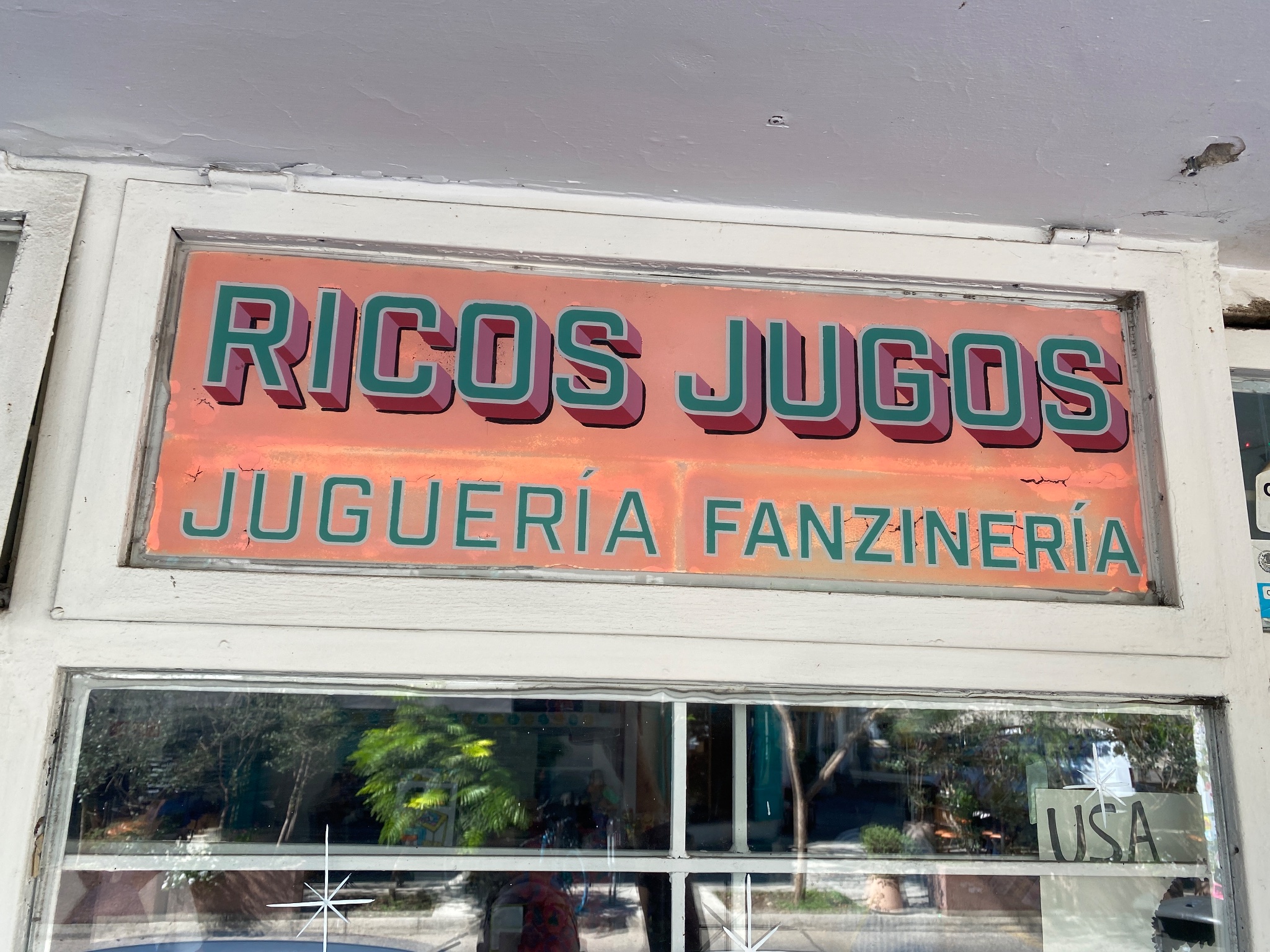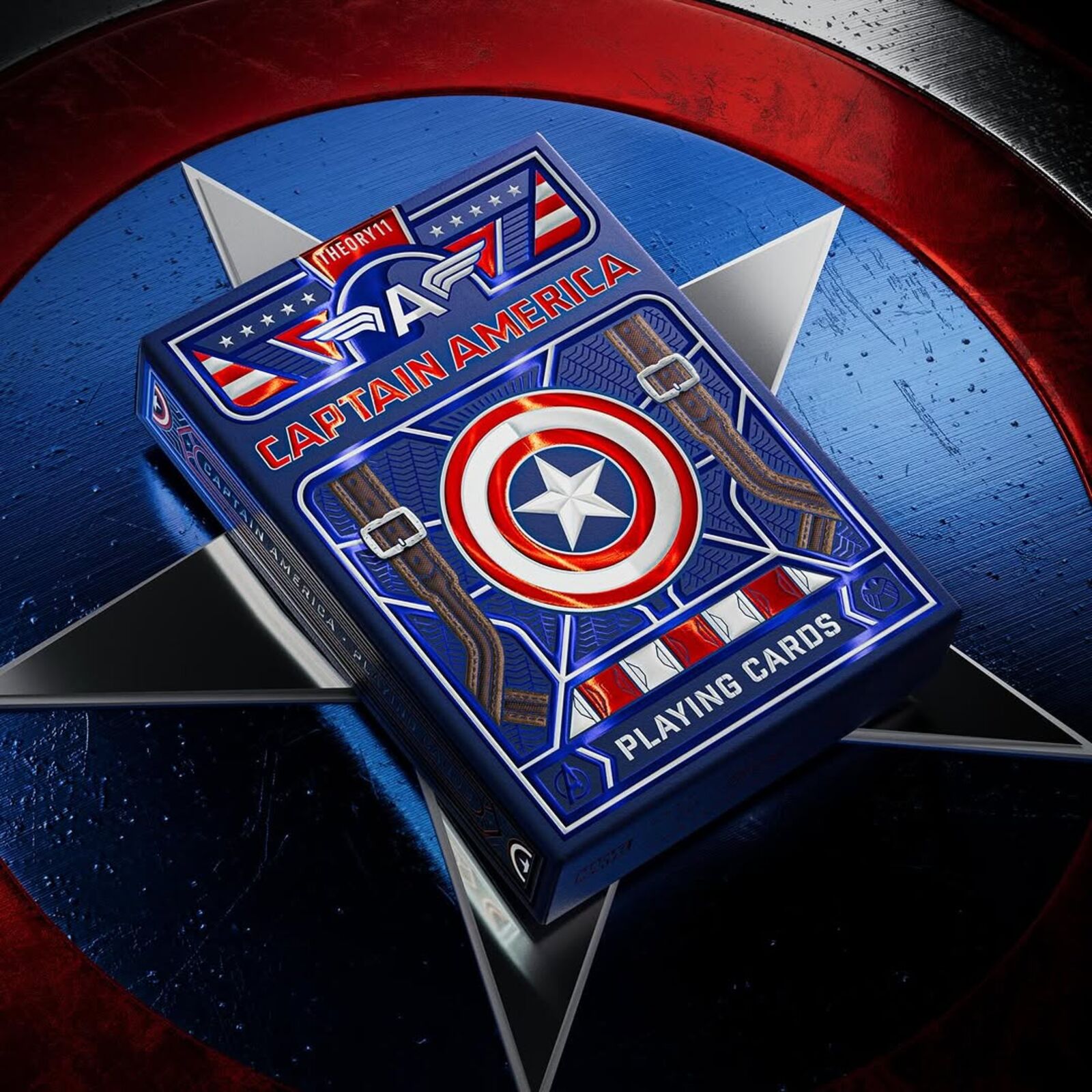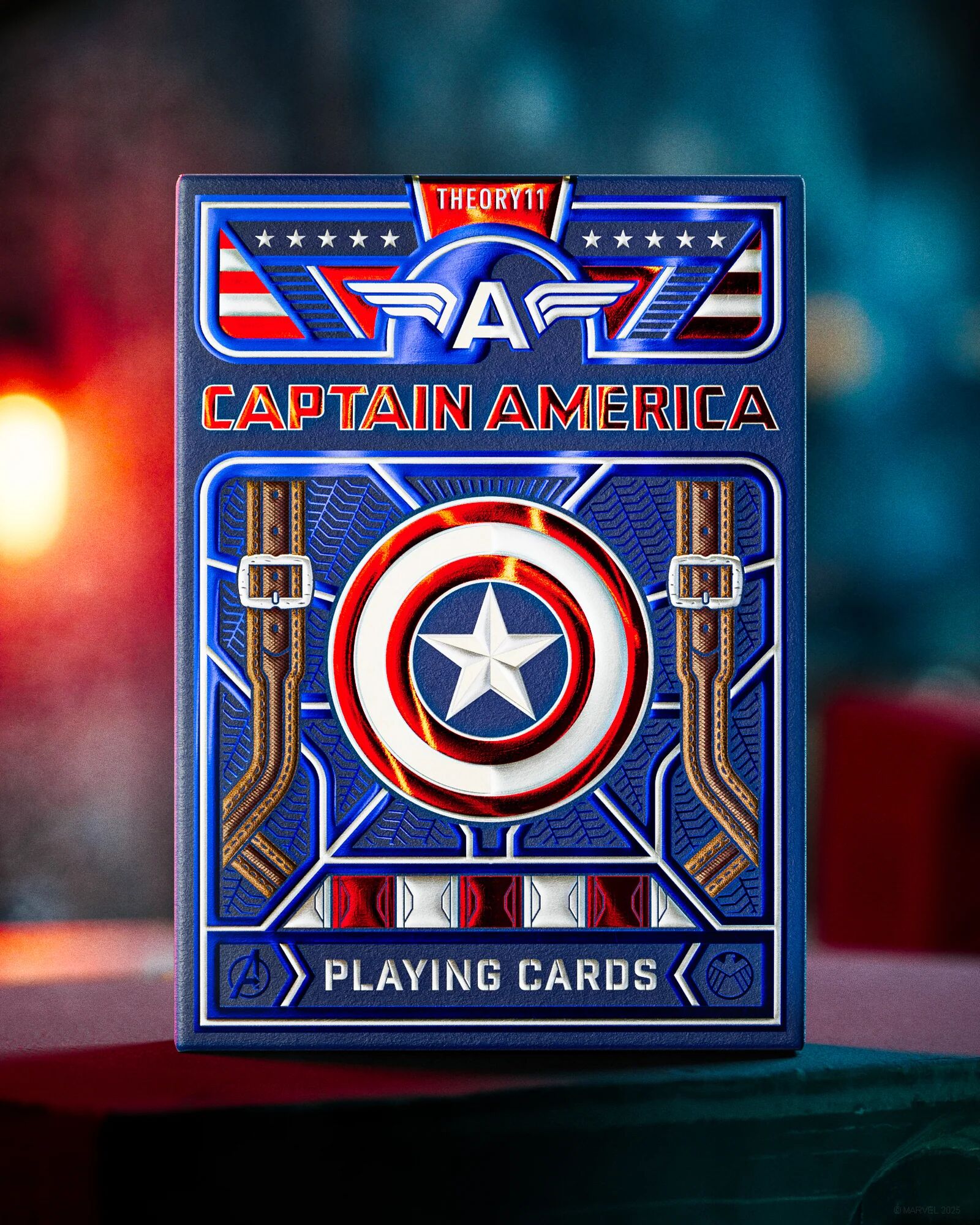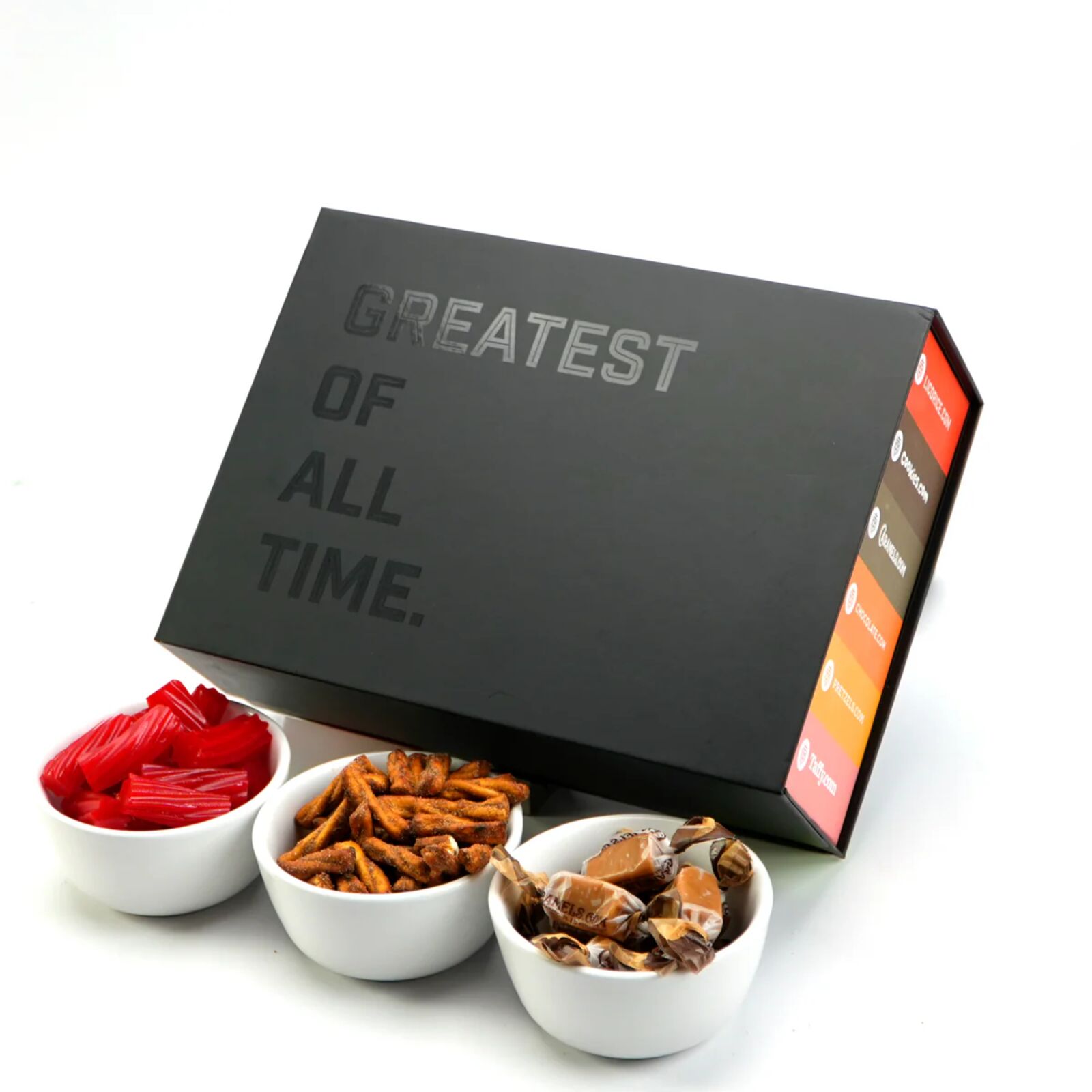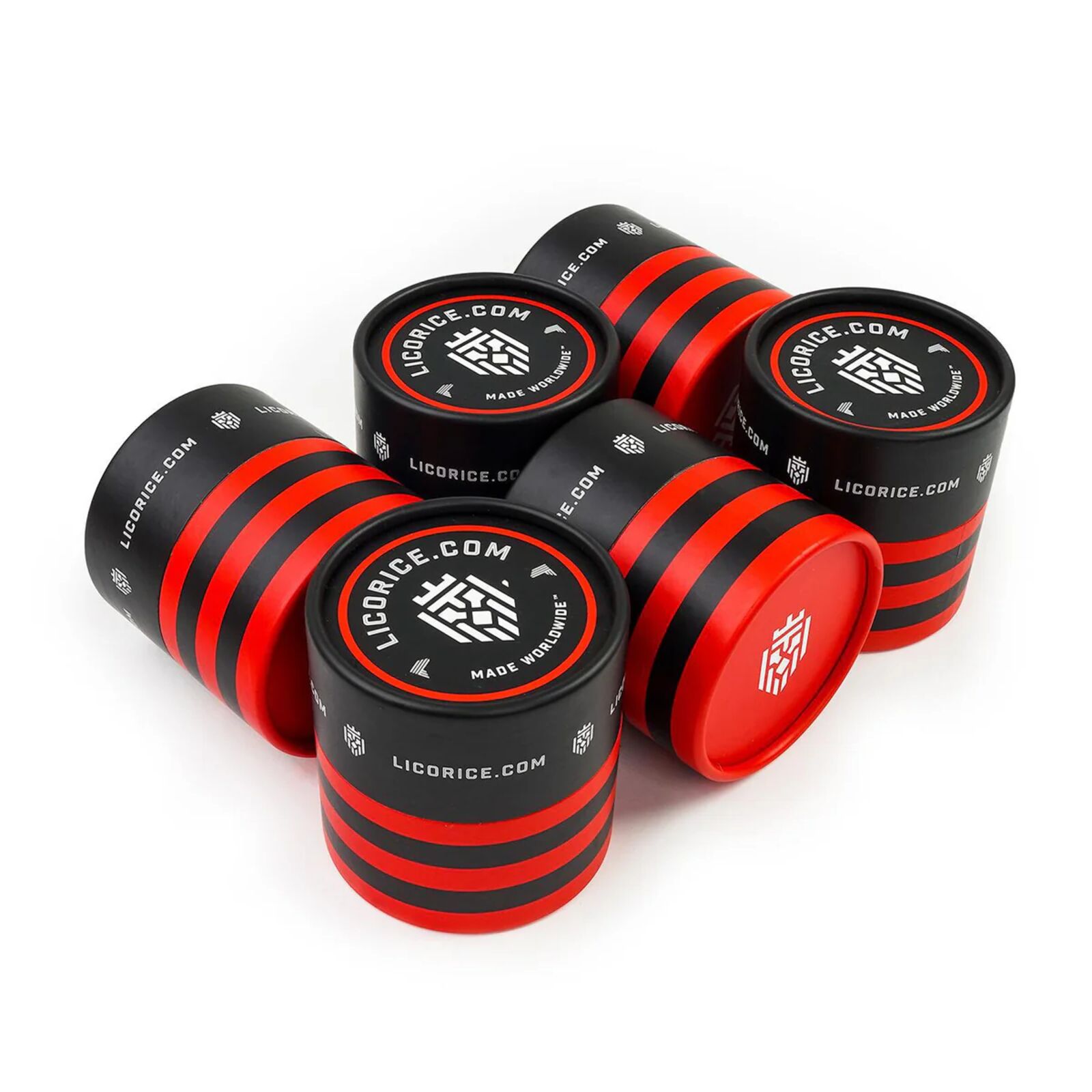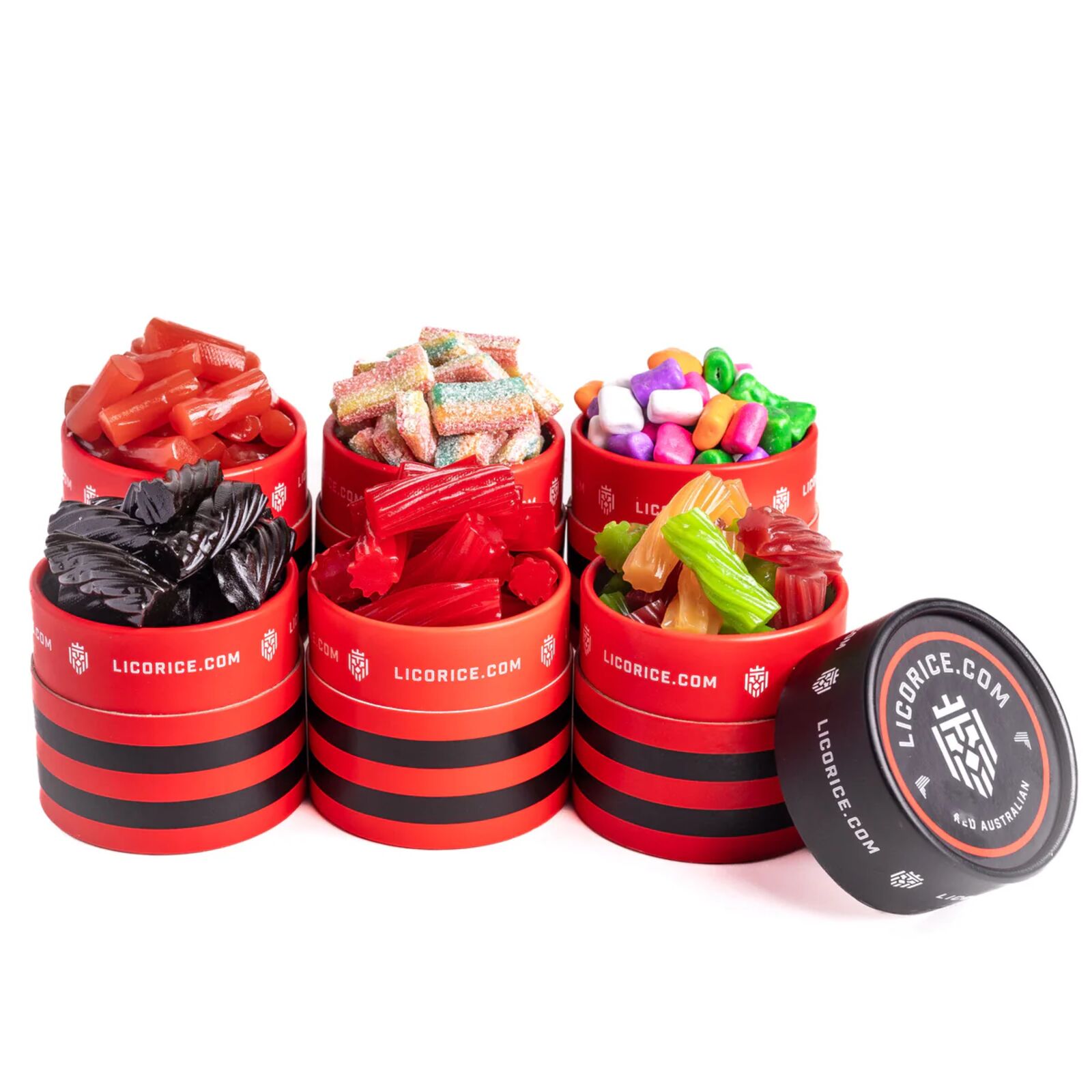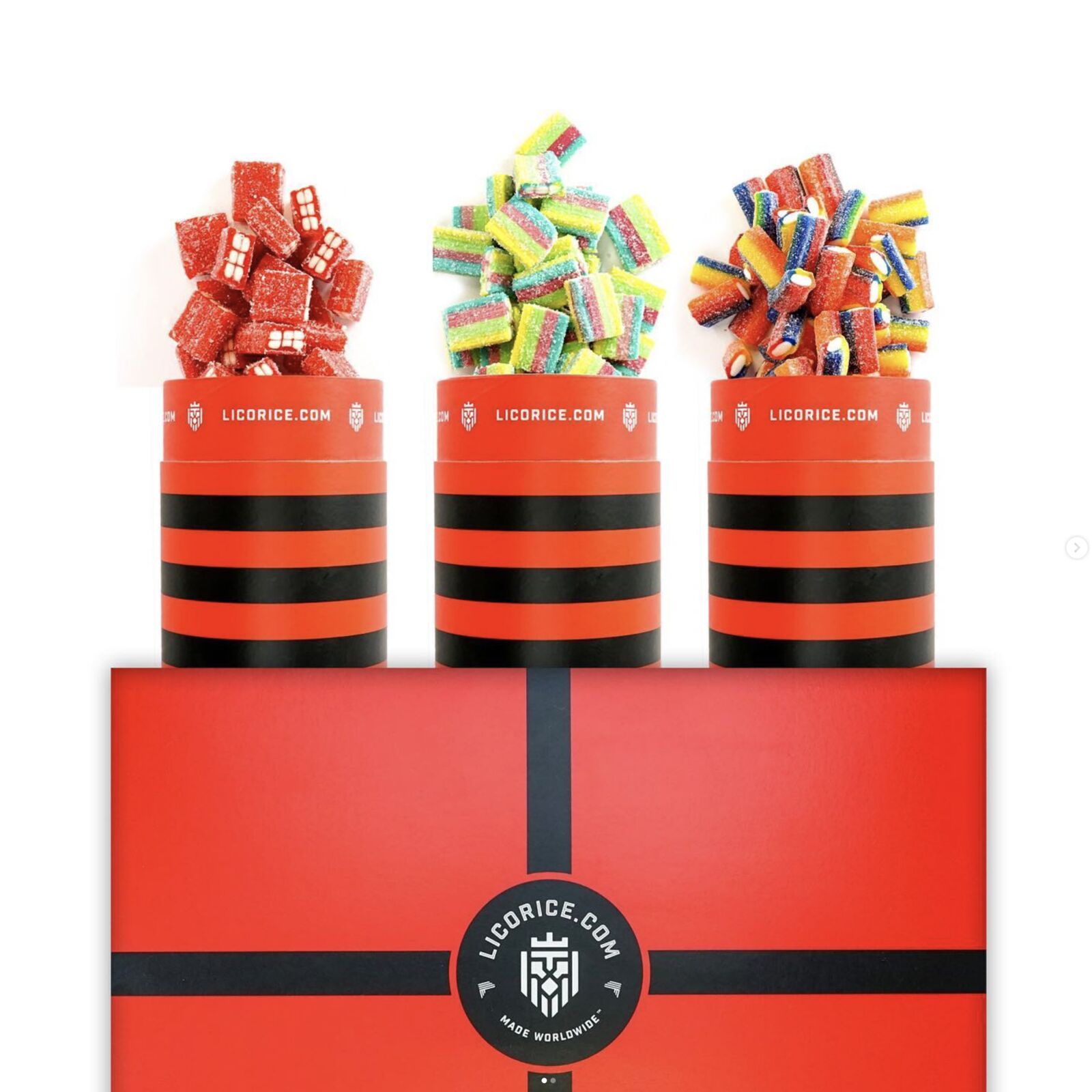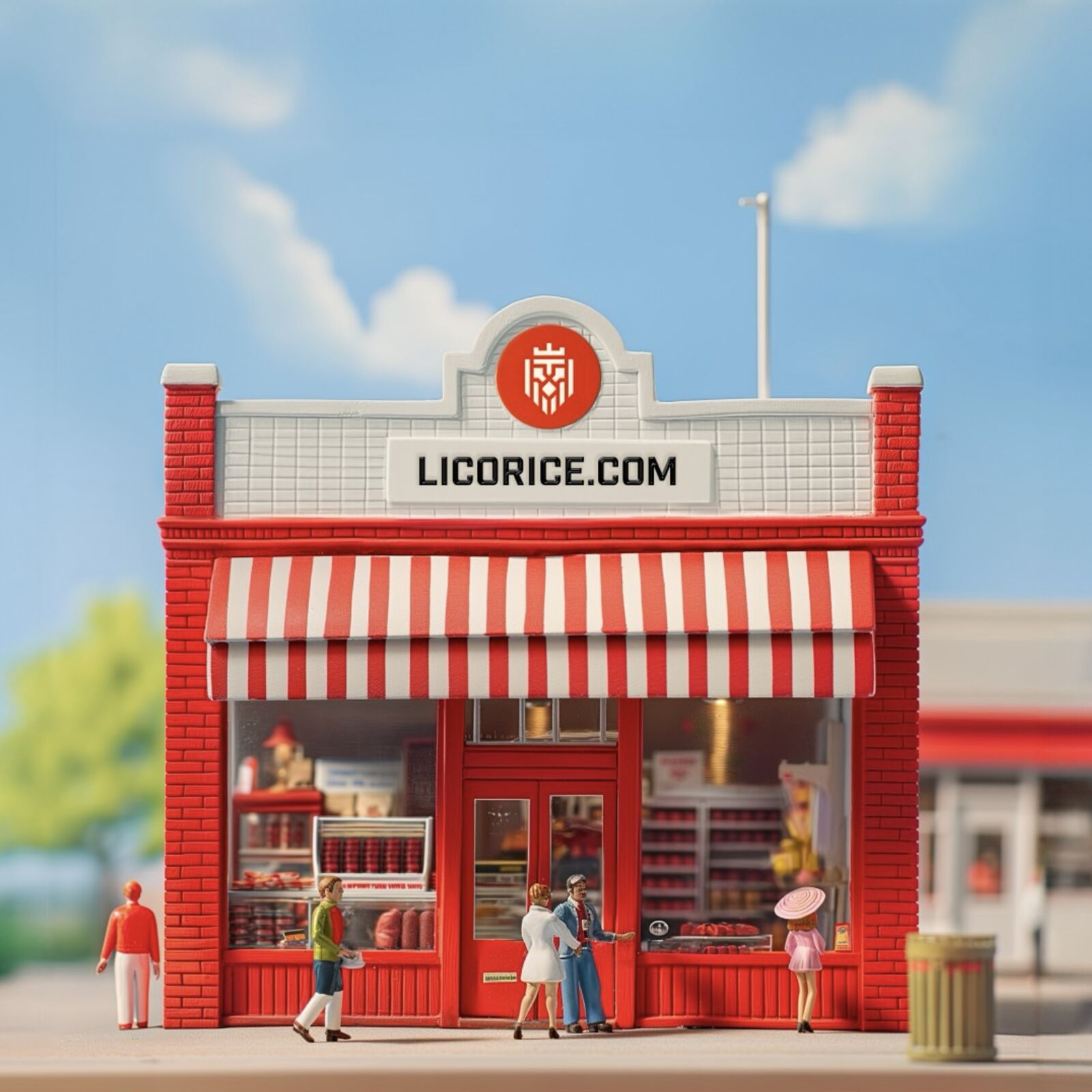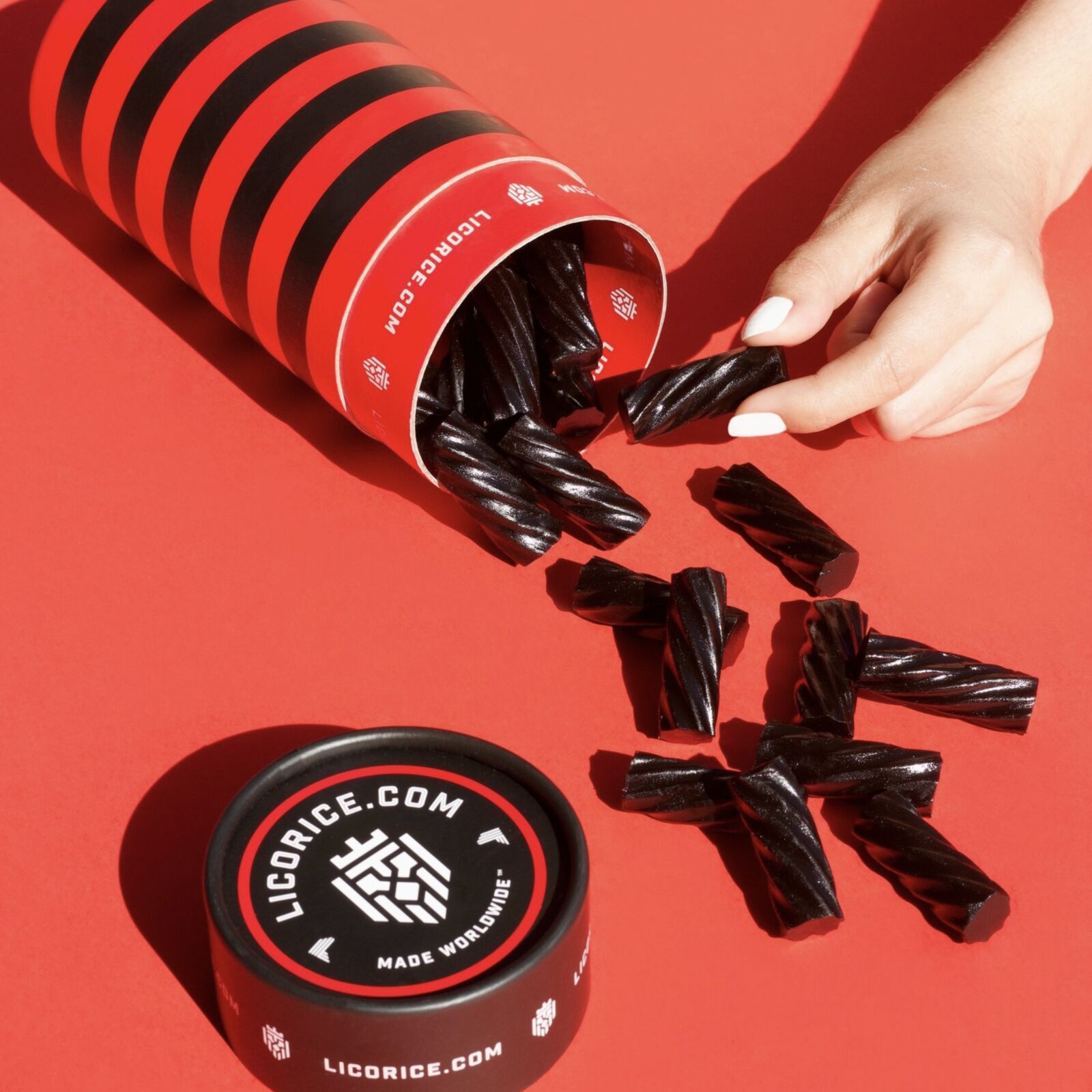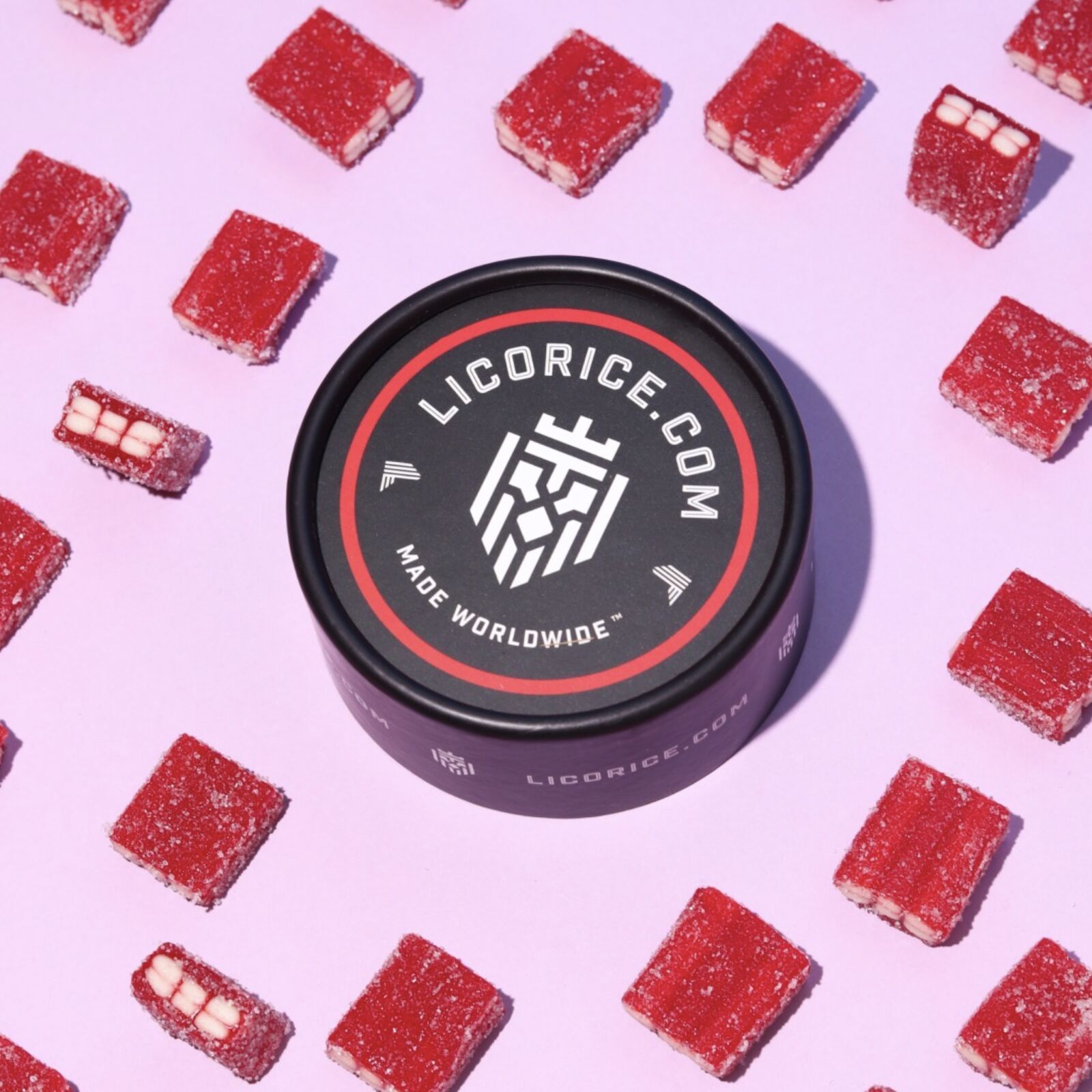
Industry Inc
Sans • 14 Styles
Styles
Base
Stencil
Detail
Detail Fill
Inline
Cutline
In-N-Out
Outline
Bevel
Bevel Fill
3D
Inline Stroke
3D Right
3D Shadow
In-n-Out
Bevel
Cutline
Detail
Inline and Outline
Stencil
Industry Inc is a toolbox of type equipping designers with extensive typographic options and combinations.
Based on the bold uppercase style of the Industry family. The typeface comprises numerous stand-alone styles along with a layered type system. Take a look through the manual or watch a video tutorial on layering.